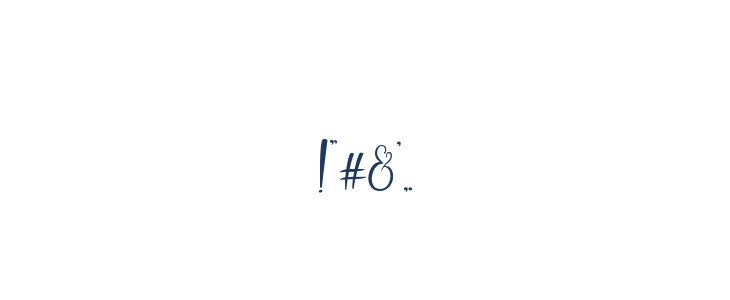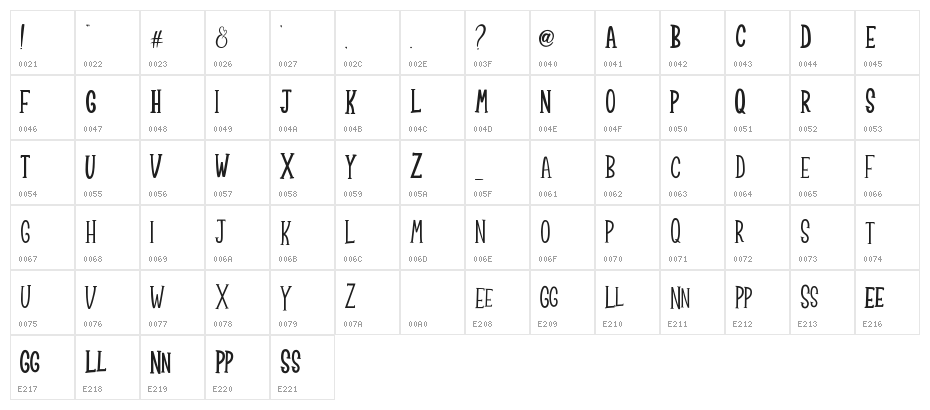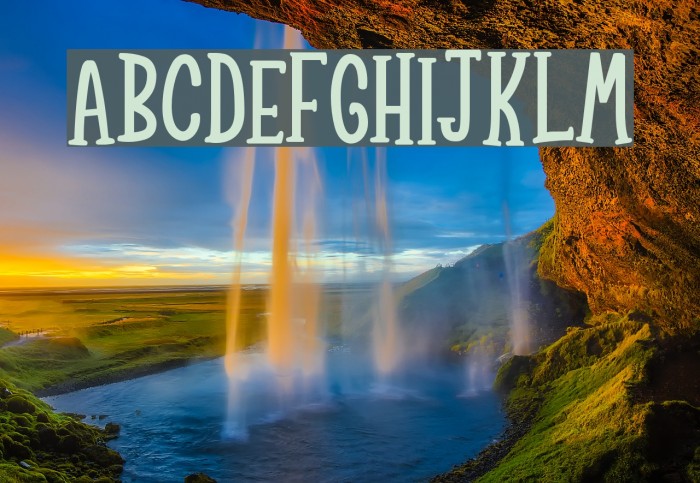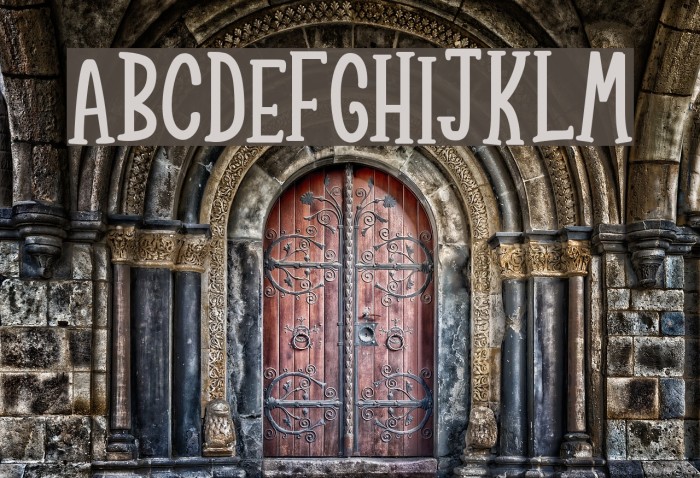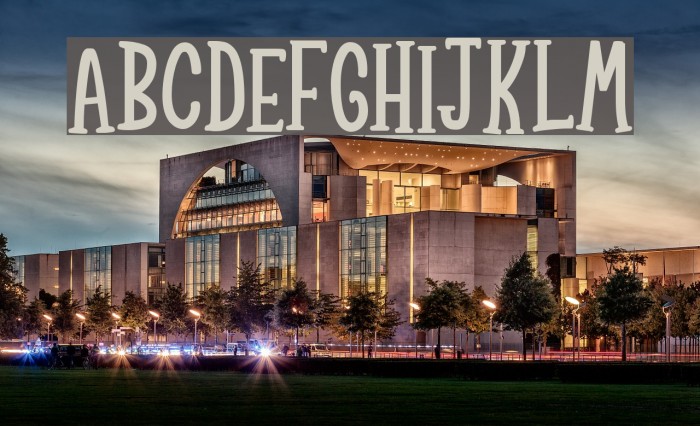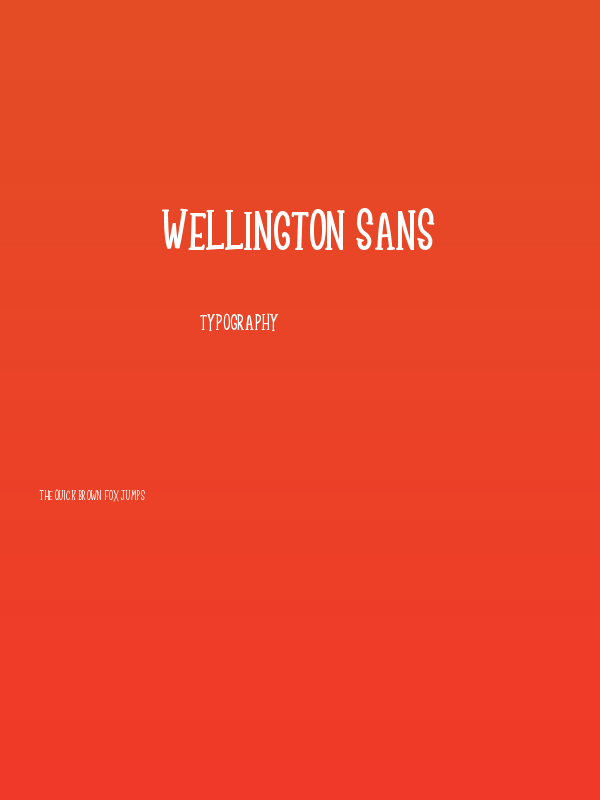
Wellington Sans Font
Wellington Sans Description
This font features a playful and slightly whimsical design, characterized by its tall and narrow letterforms. The strokes are consistent in width, giving it a uniform appearance, while the slight curves and unique angles add a touch of personality. The uppercase letters are bold and prominent, making them ideal for attention-grabbing headlines. The lowercase letters maintain the same playful style, ensuring readability and cohesion. The special characters, such as the exclamation mark and ampersand, are designed with flair, complementing the overall aesthetic. This font is versatile, suitable for both digital and print media, and can be used to add a creative touch to various projects.
| Proposed Projects | Ideal for children's books, creative posters, branding, and playful invitations. |